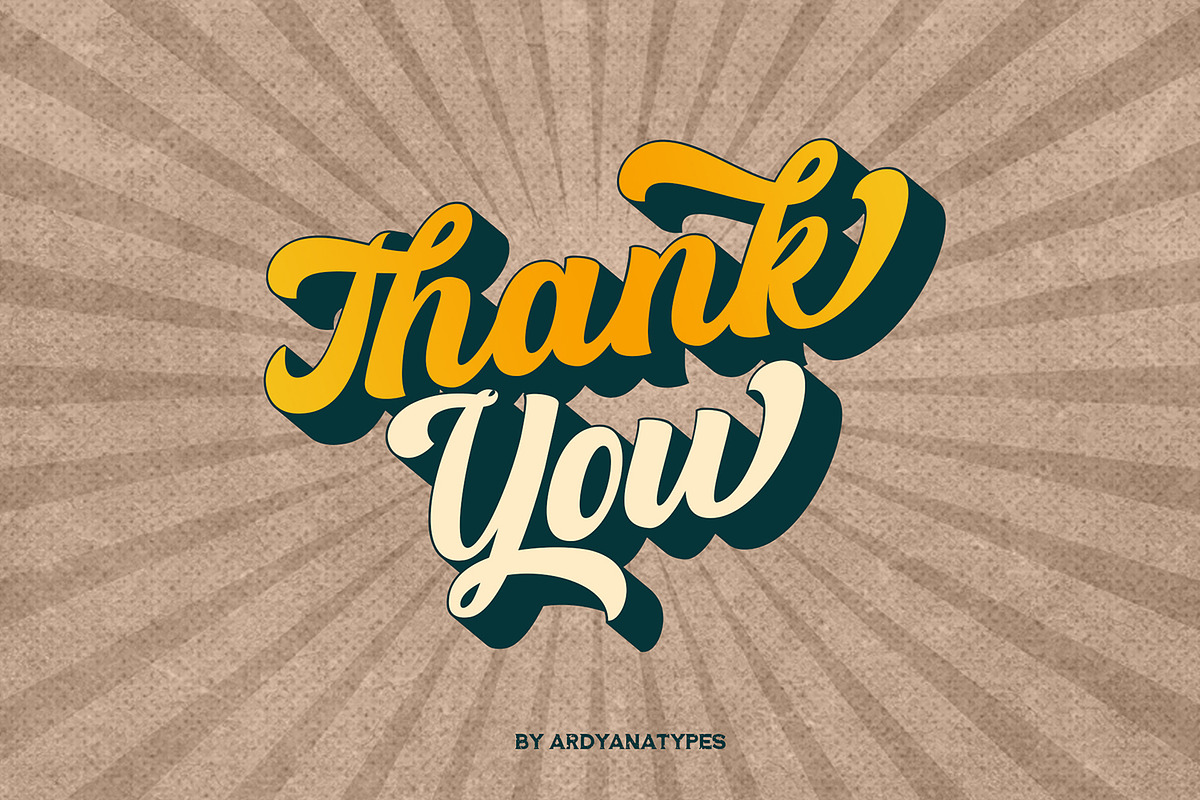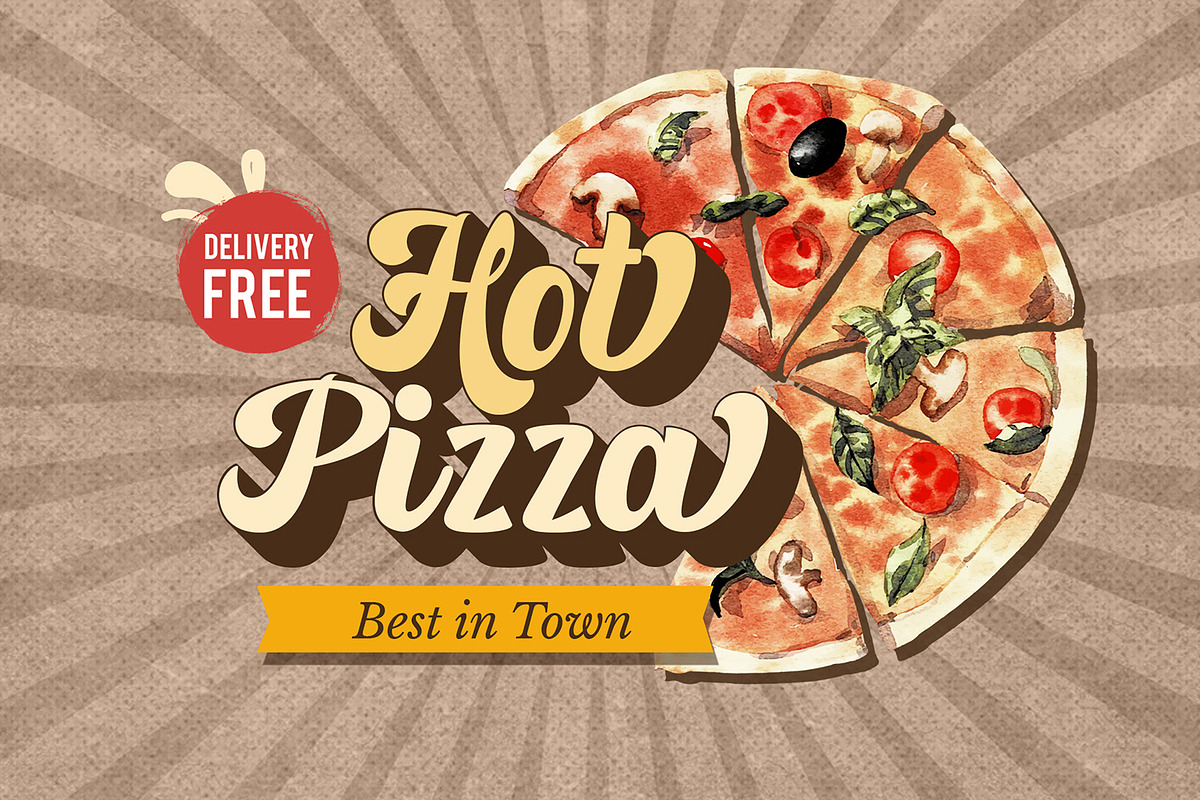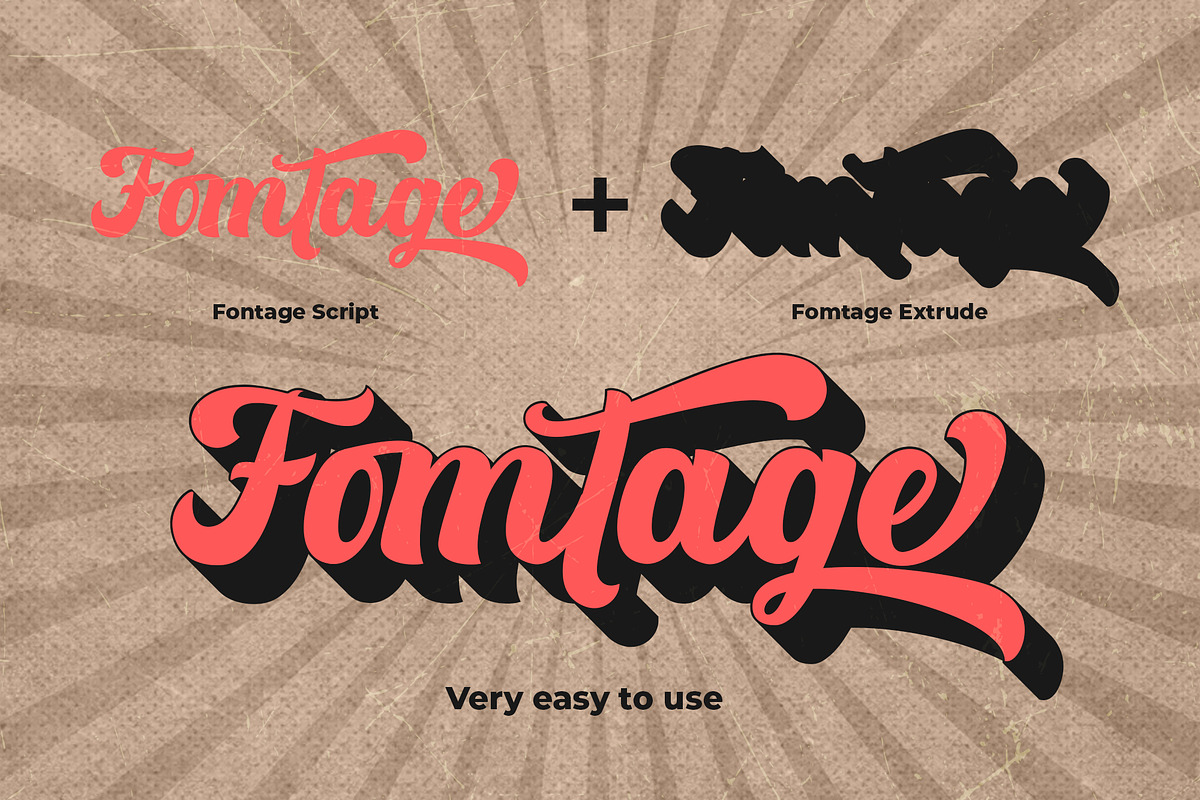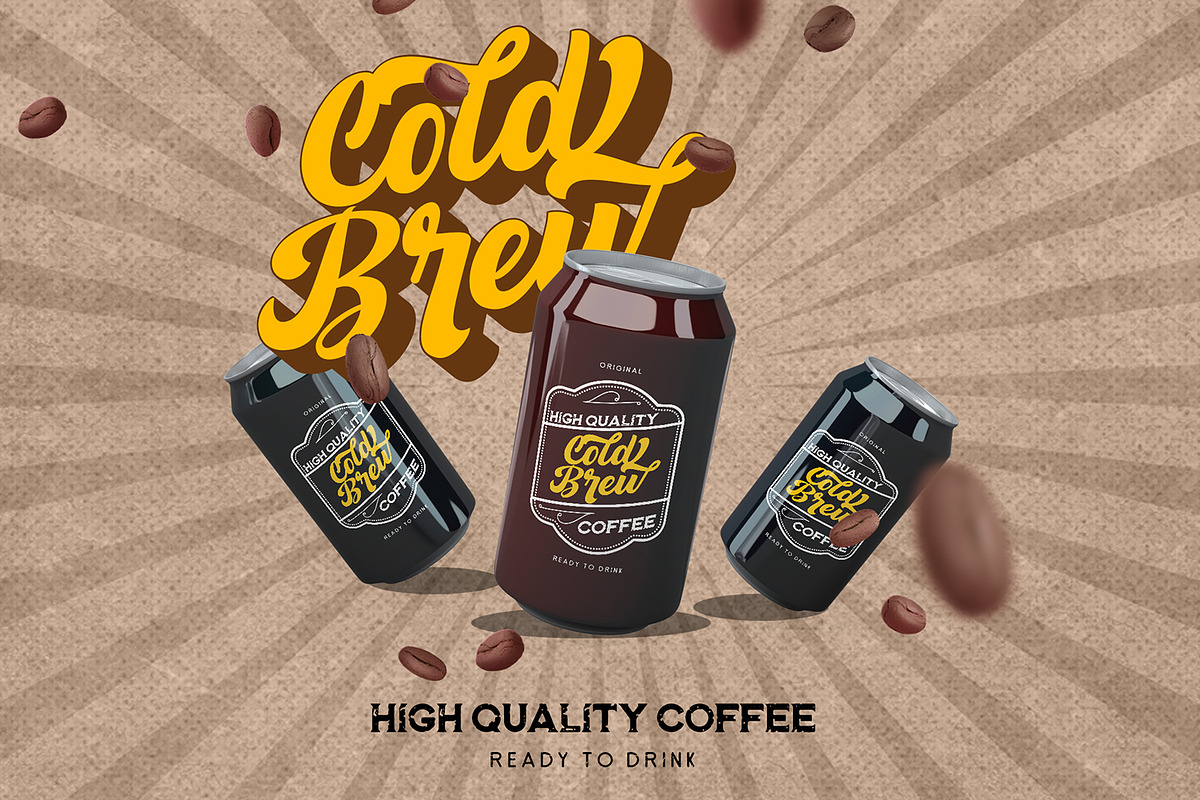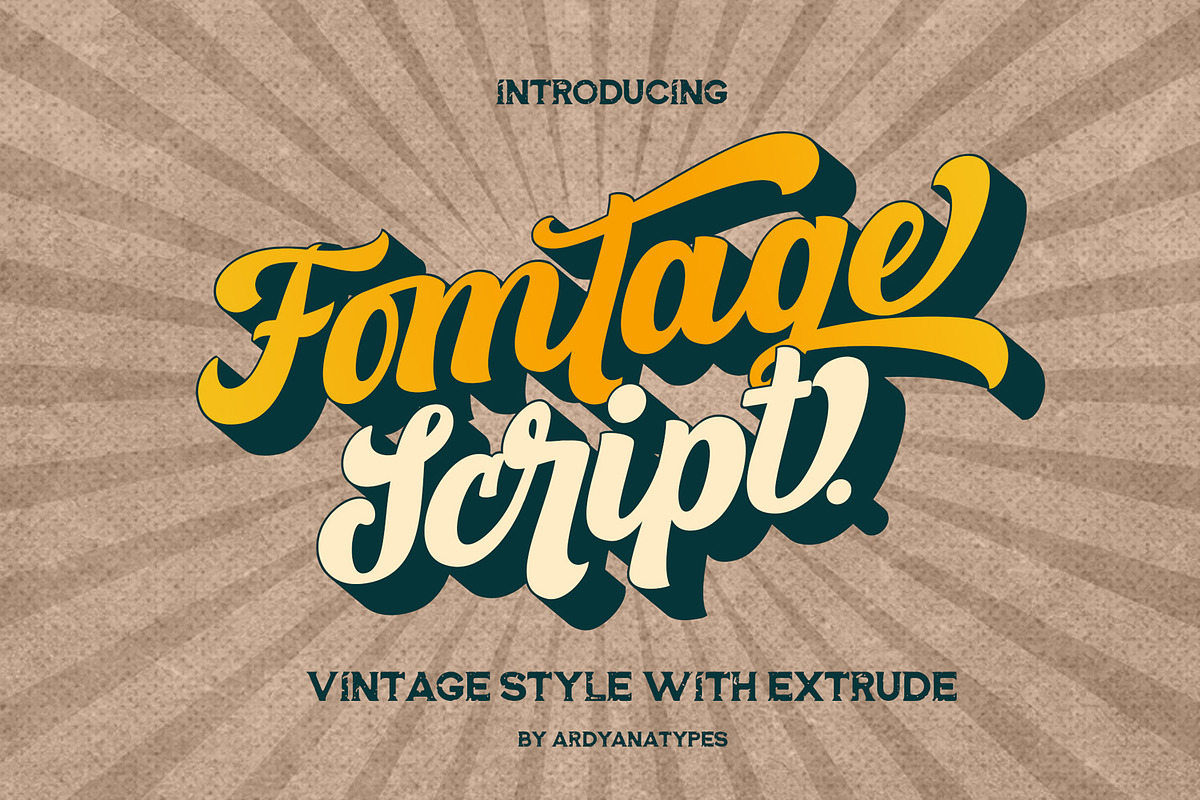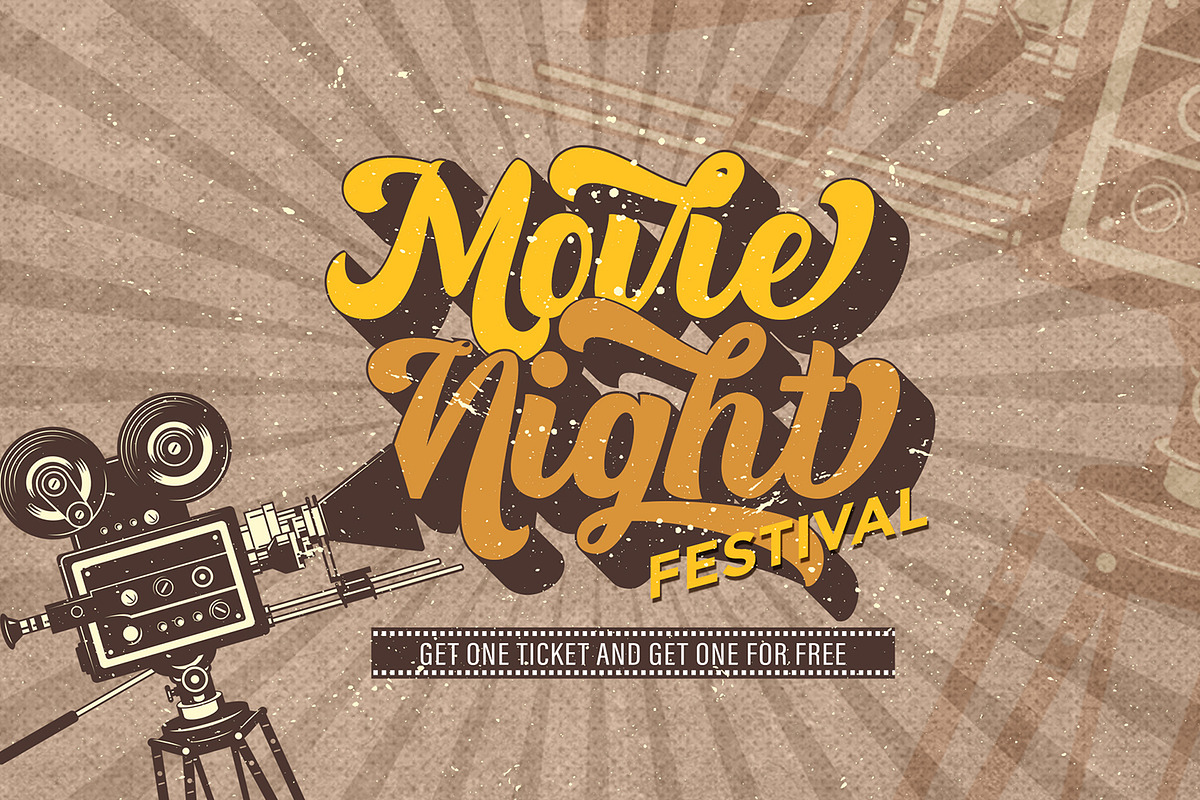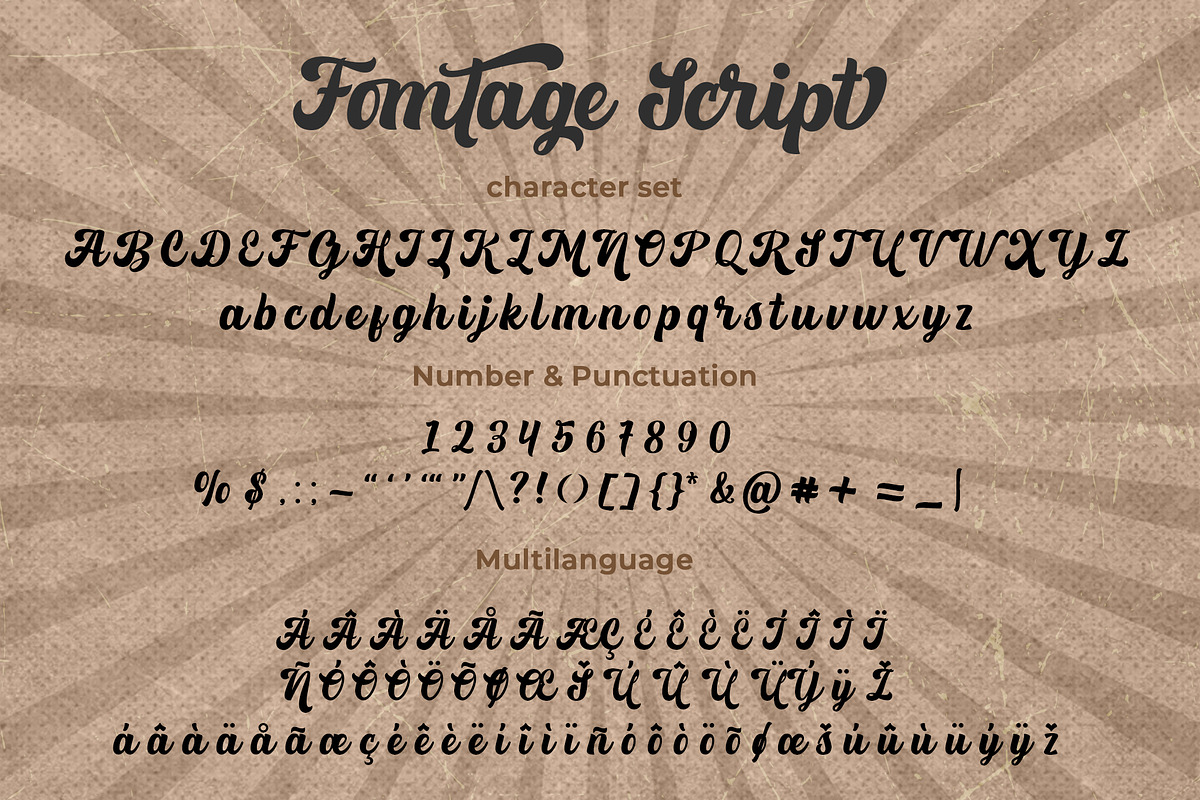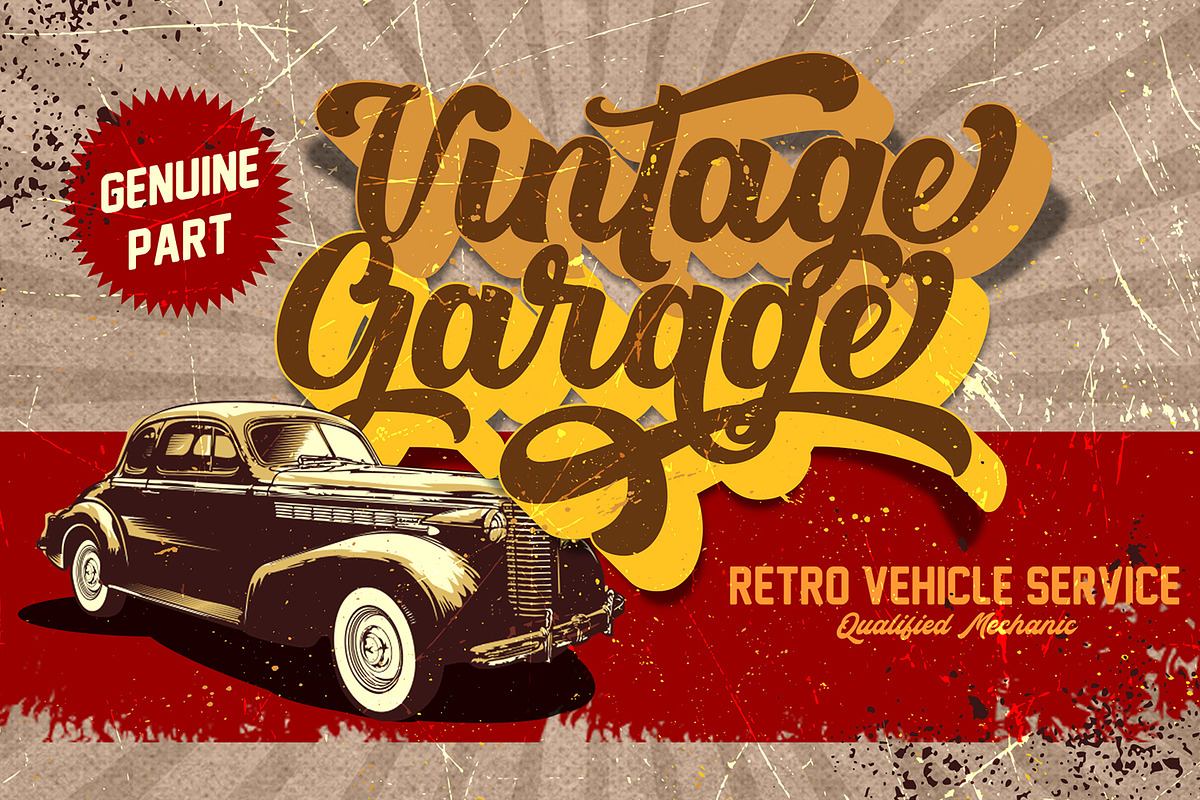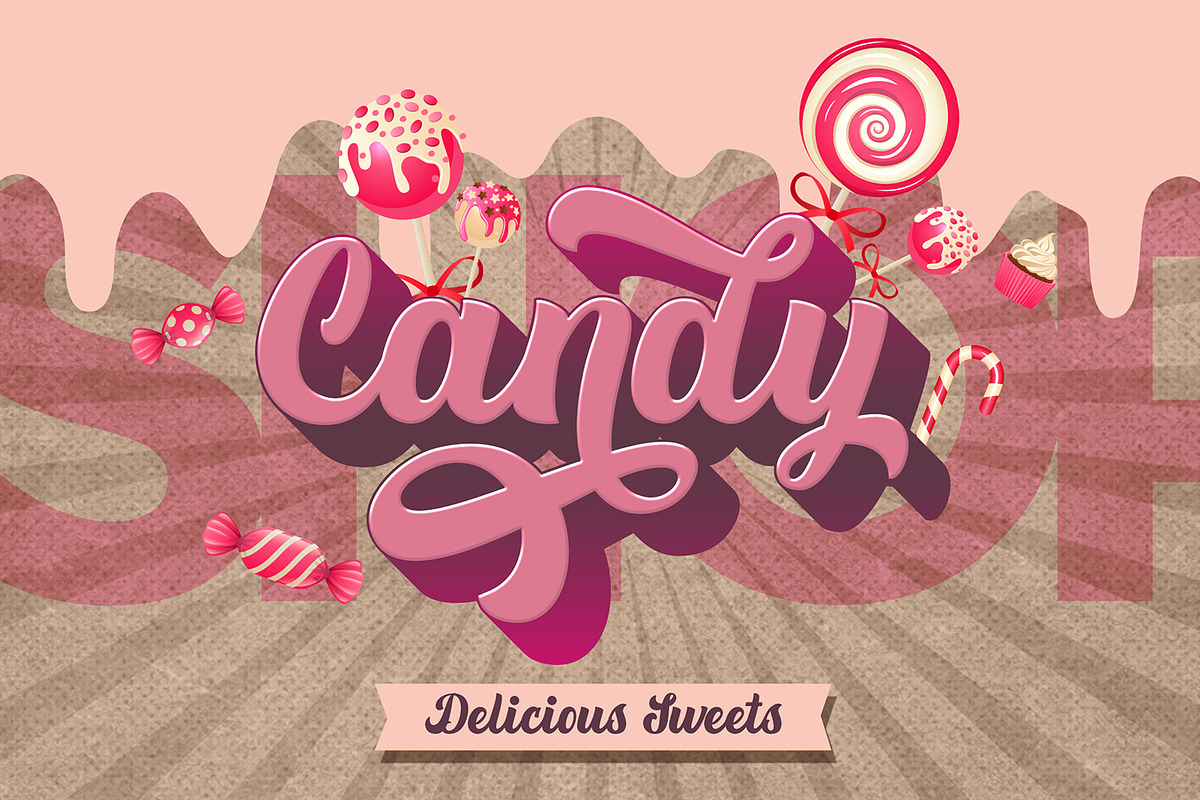
Fomtage Script
Fomtage Script is a font with a retro style made to make your designs look more attractive. Fomtage has 2 styles, namely script and extrude, this makes it 2 layers that can be combined so that it gives a very interesting shadow effect to add a retro impression. It will be very easy to use and will save you time on designing. Fomtage also has many opentype features such as ligature, and alternate. This will be very suitable for use as a logo, poster, packaging, merchandise, social media & greeting cards.